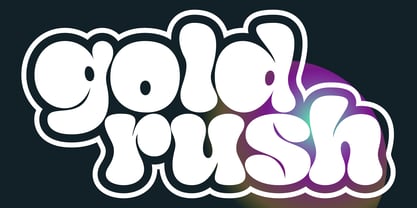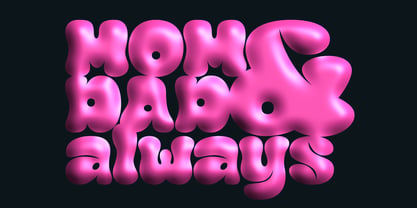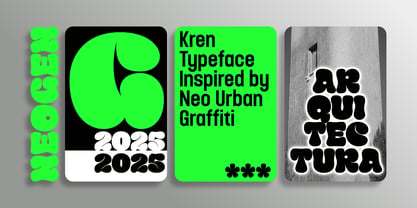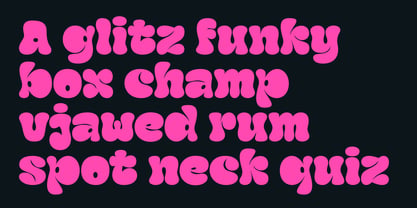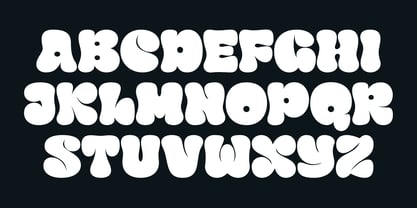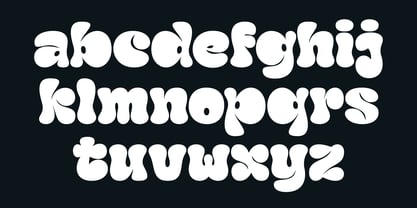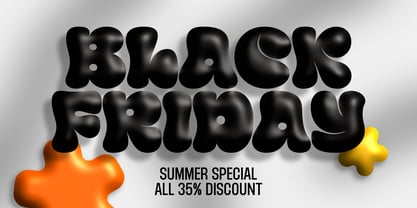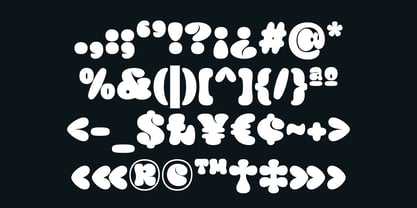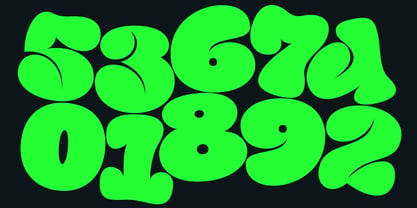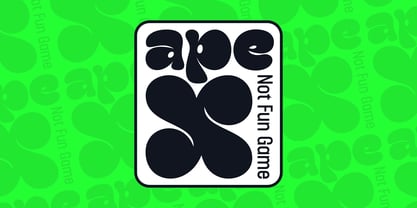
Kren
The Kren Font Family was designed by Sugi Yanto and published by Sign Studio. Kren contains 1 styles. More about this family
Kren is a font inspired by graffiti murals plastered on city walls. The typeface displays free expression. Its fat body gives it an adorable impression. The kerning of each character for the alphabet, numbers, and the most frequently used punctuation marks has been neatly organized. The Kren font is not only made for display, but it also supports several languages, making it flexible for communication. Readability is a top priority in every Sign Studio font because it has been the main focus since we began creating fonts. A typeface like Kren is usually suitable for posters, logos, and product branding.